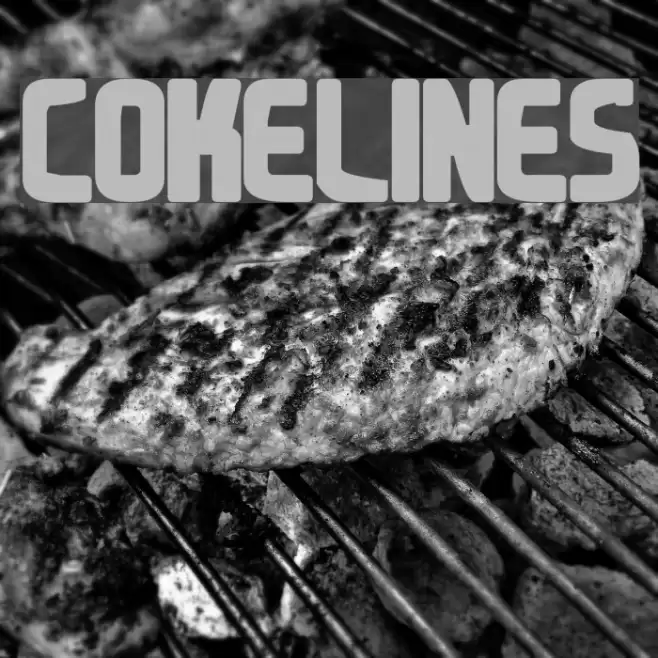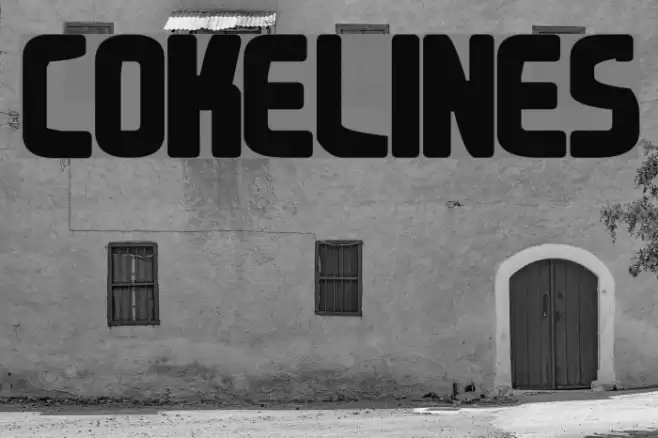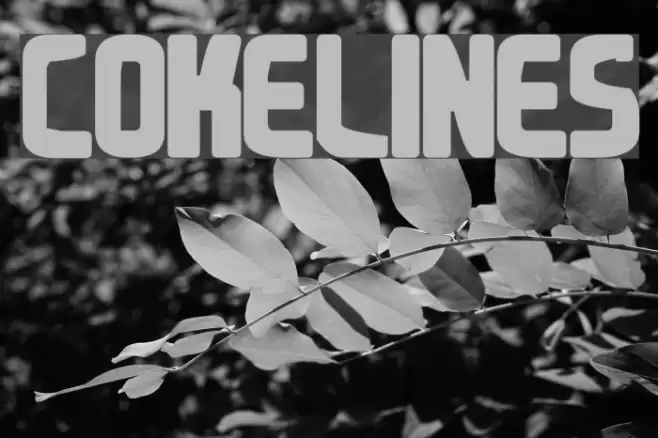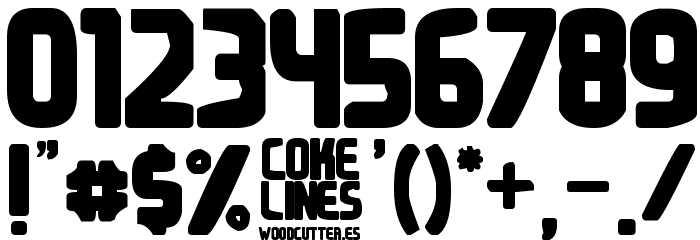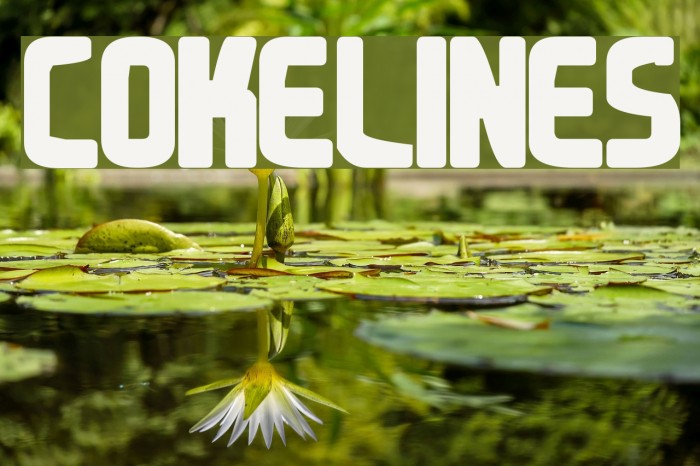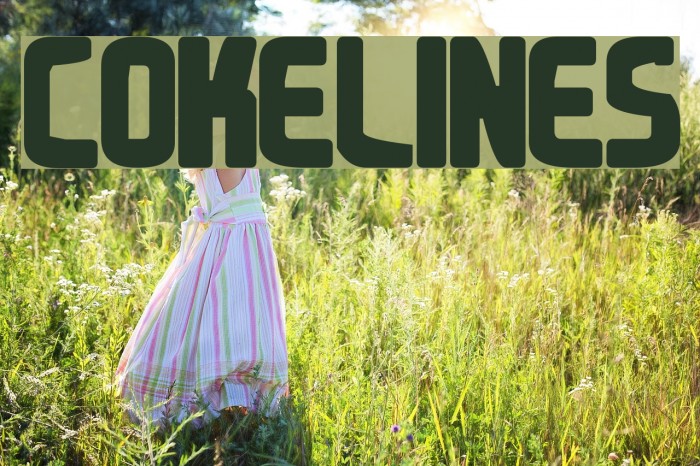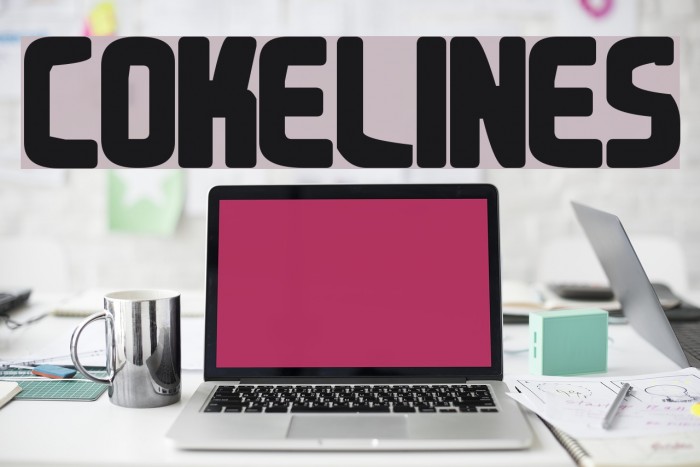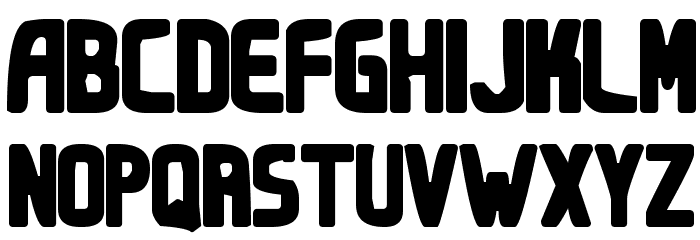
Cokelines Font
Cokelines Description
This font features bold, rounded characters with a playful and modern aesthetic. The letters are uniformly thick, giving a strong and impactful appearance. The rounded edges soften the overall look, making it approachable and friendly. The numbers and special characters maintain the same boldness and rounded style, ensuring consistency across all elements. This font is highly legible and stands out due to its substantial weight and unique design. It is suitable for projects that require a strong visual presence and a touch of modernity.
A bold, rounded font with a playful and modern style from Cartoon fonts.
- Proposed Projects: Ideal for branding, posters, headlines, and any design needing a bold, modern touch.